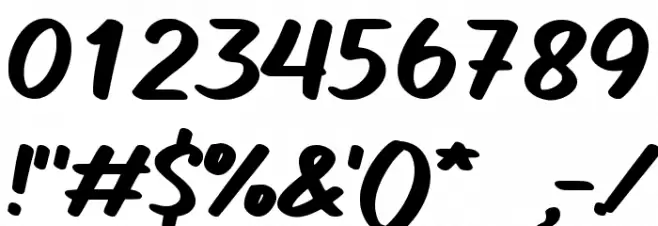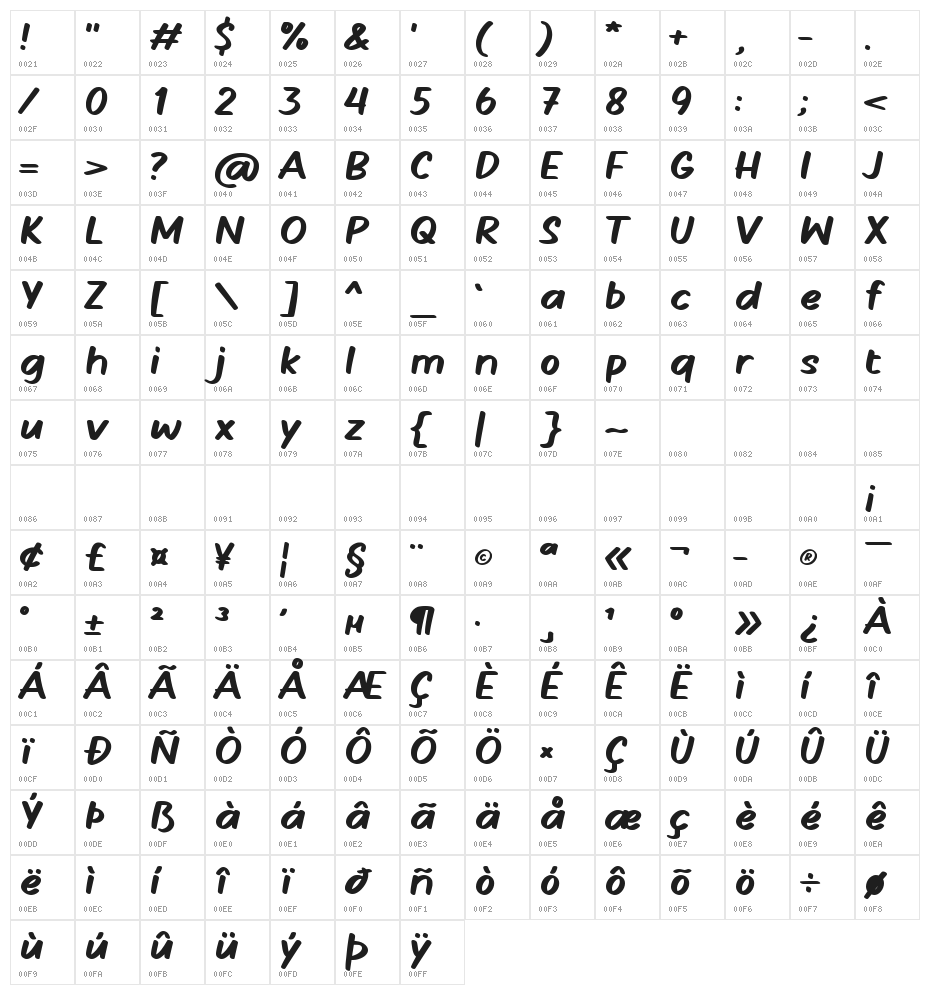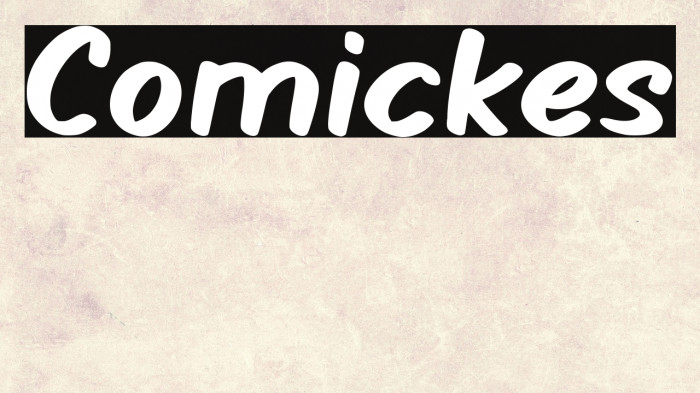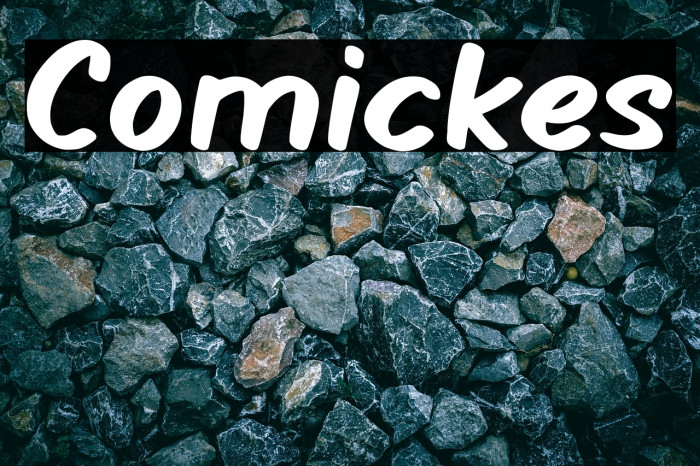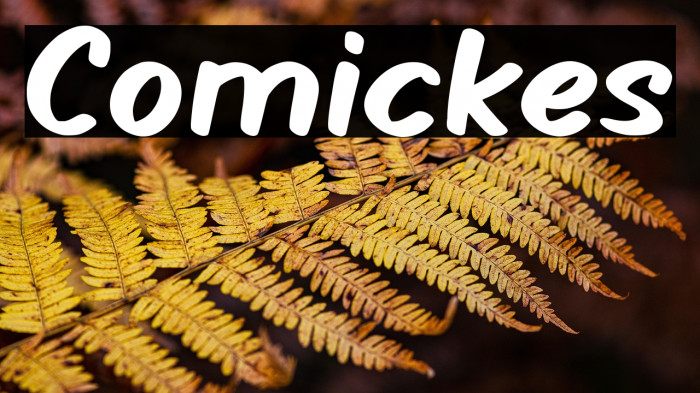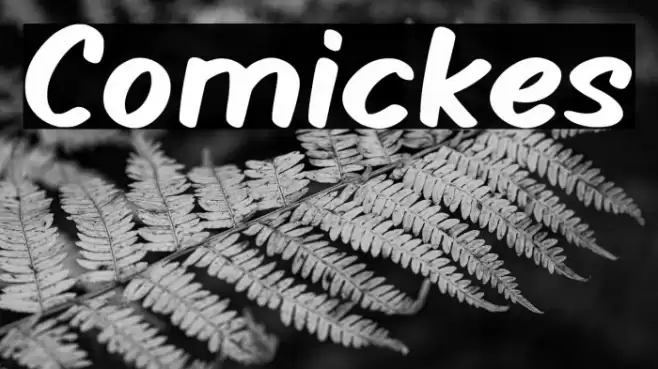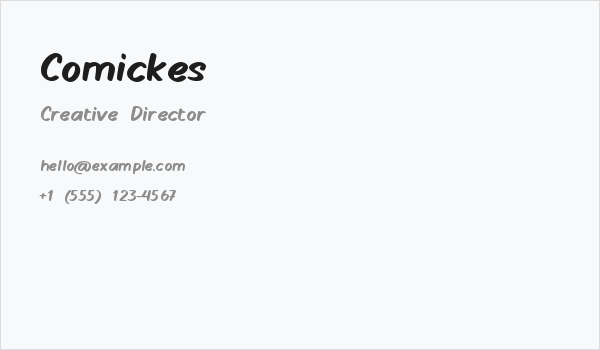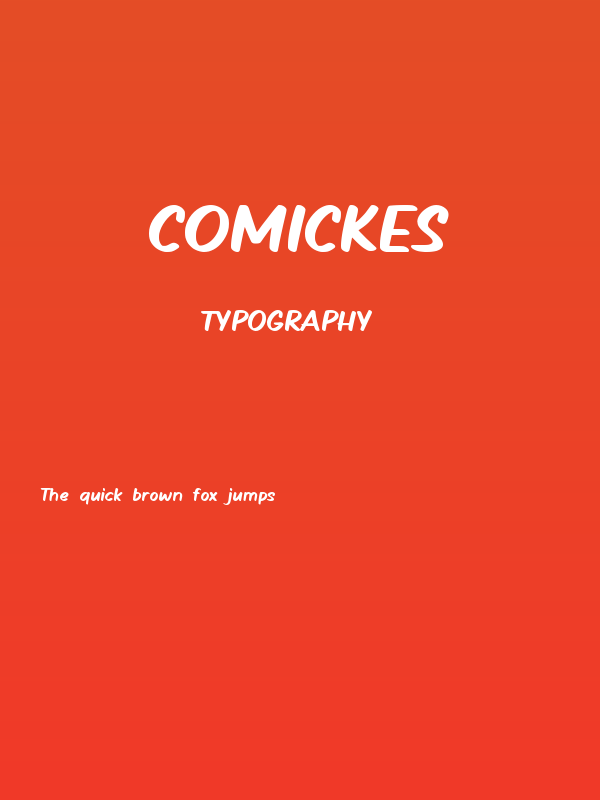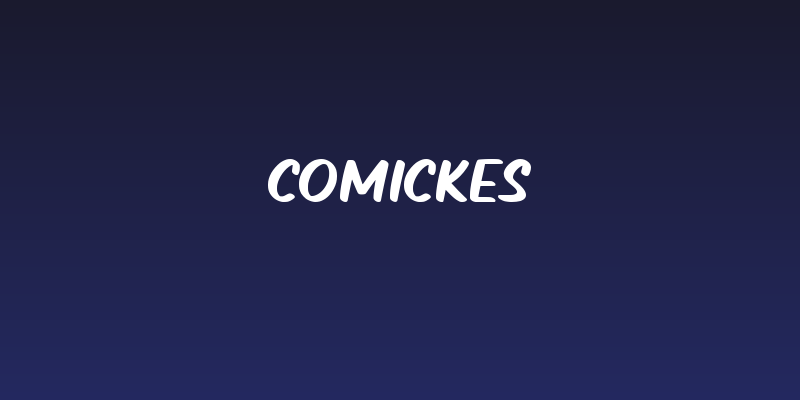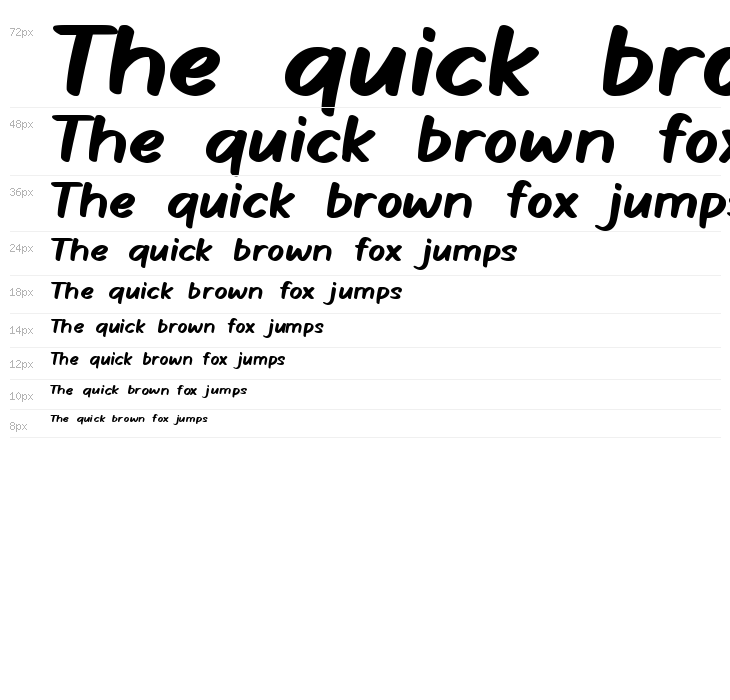
Comickes Font
Comickes Description
This font features a playful and bold style, characterized by its rounded and slightly slanted letterforms. The strokes are consistent in thickness, giving it a cohesive and smooth appearance. The uppercase letters are bold and prominent, while the lowercase letters maintain a friendly and approachable look. The numbers and special characters follow the same rounded and bold aesthetic, making them easily readable. This font exudes a casual and fun vibe, suitable for projects that require a lively and informal touch.
Overall StylePlayful
Proposed ProjectsIdeal for comic books, children's books, playful branding, and casual posters.